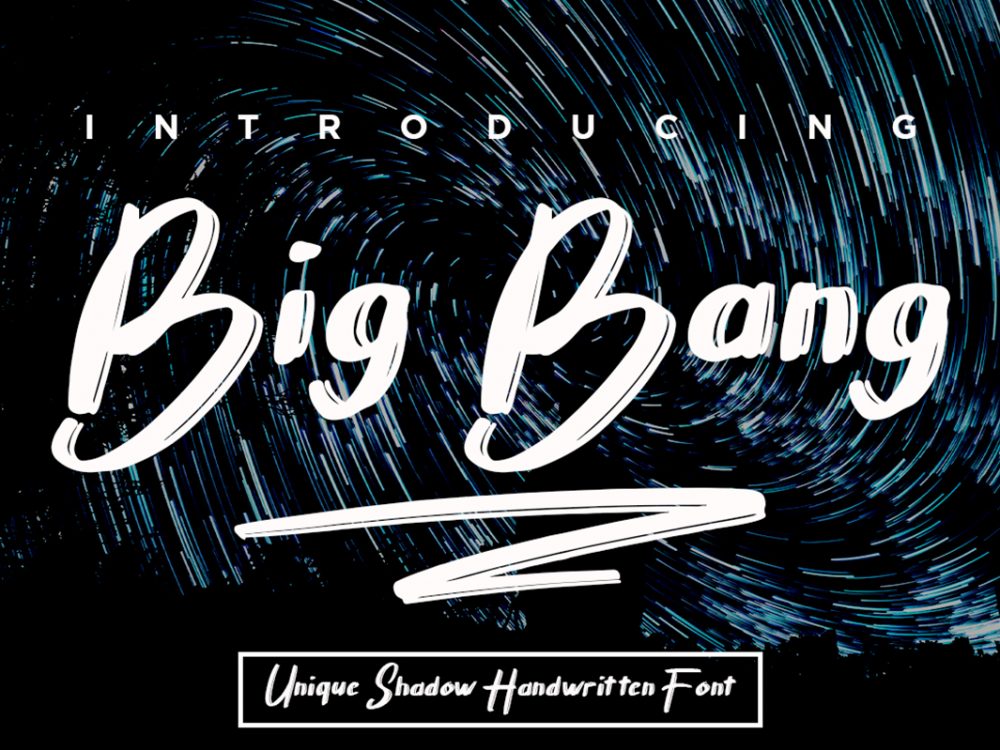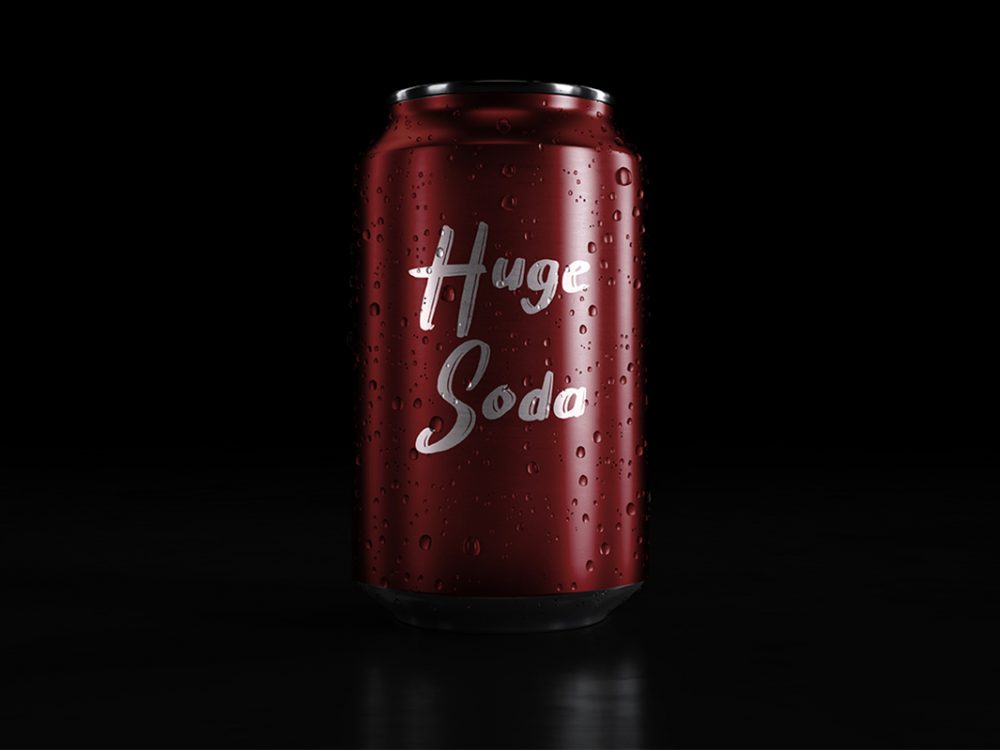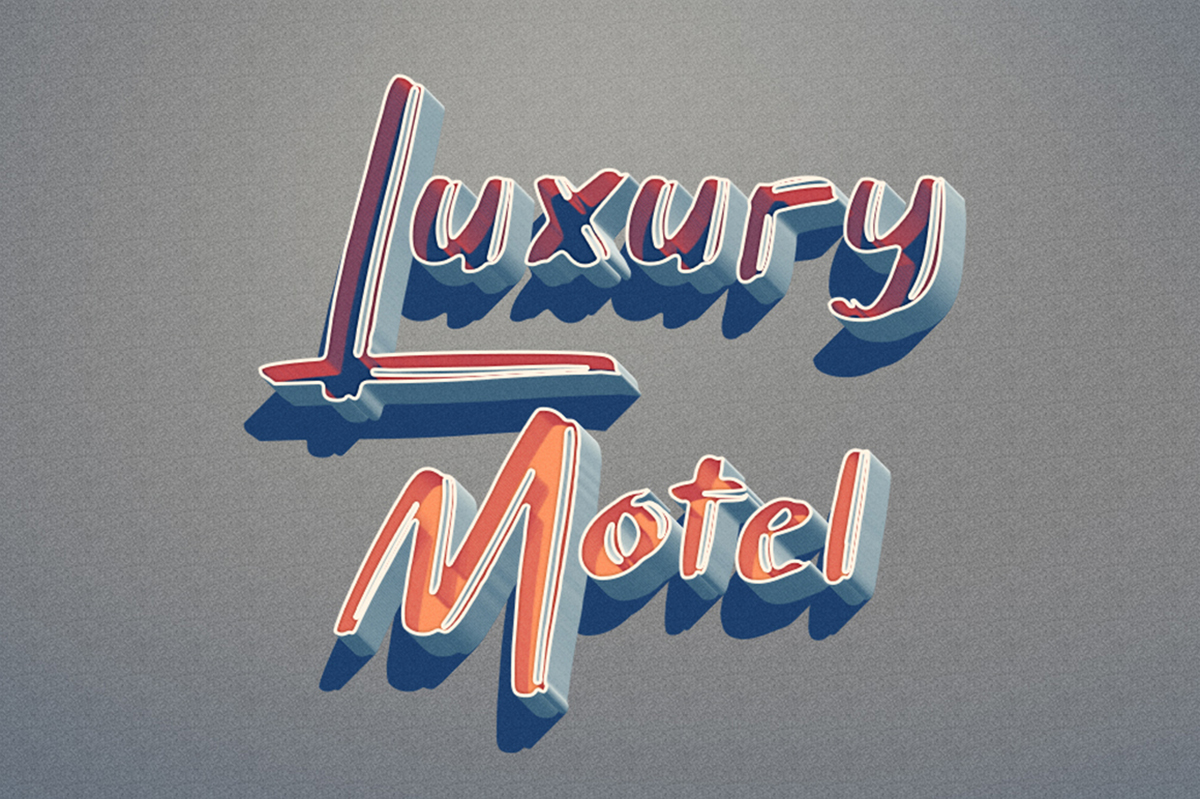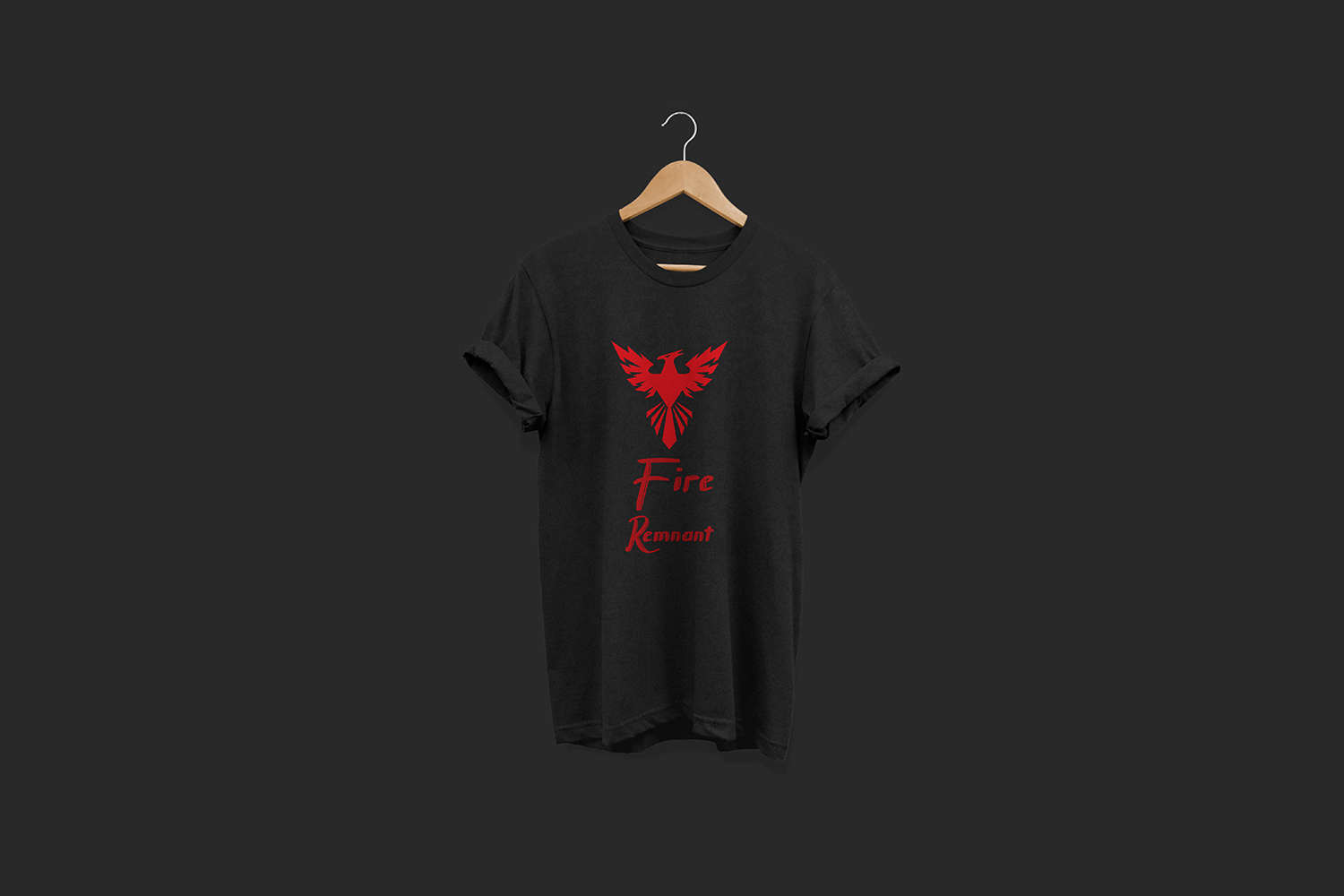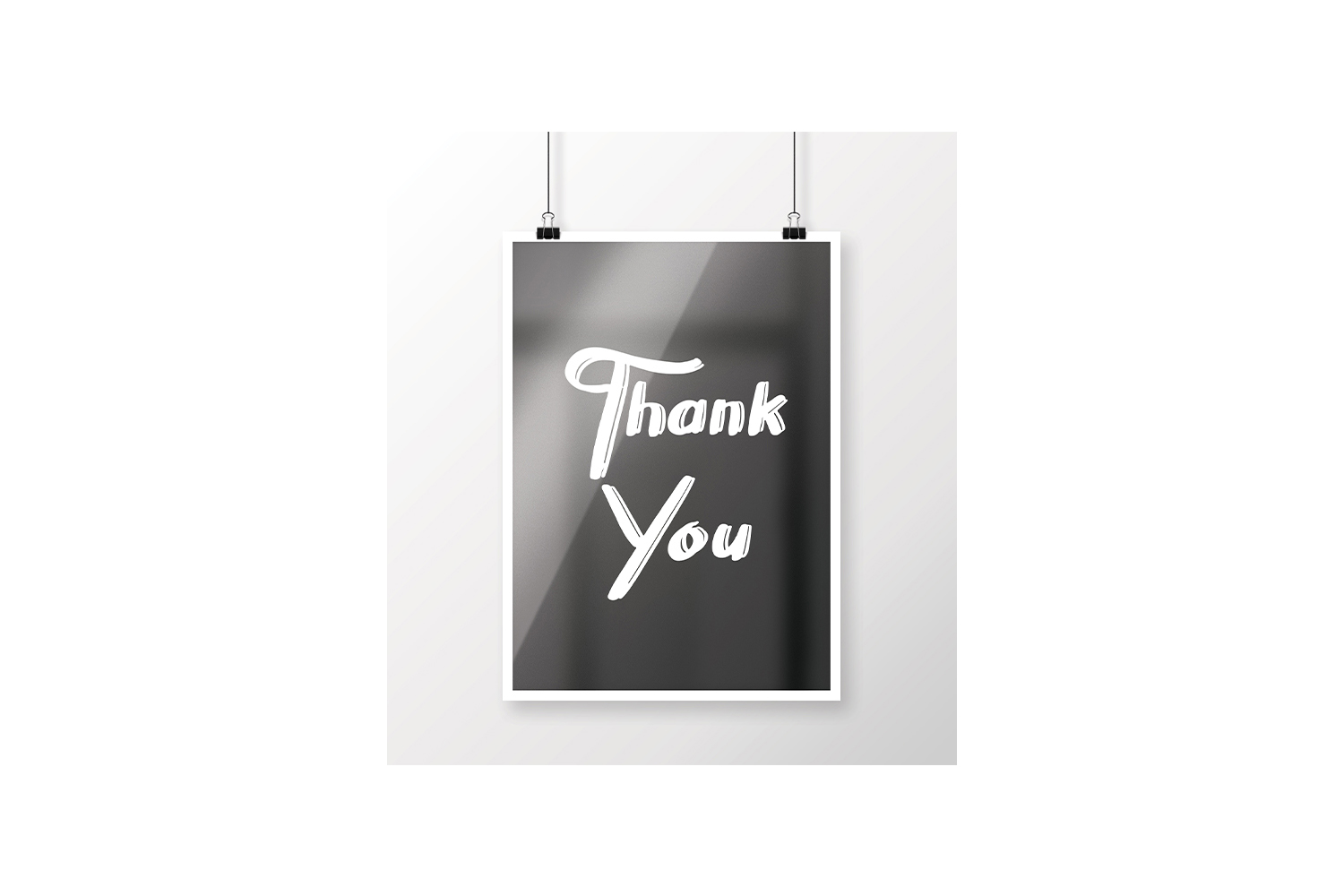
Big Bang Free Font
Big Bang Free Font is an interesting script font that simulates writing with a brush and will help you create unique design projects in a modern style and also improve the quality of your projects. You can use this font to create memorable posters, wedding invitations, cards, branding, flyers, and more. If you like it don’t forget to check out the full version.
Author: Blom Letter Studio